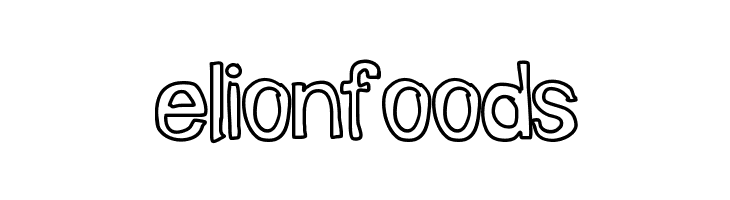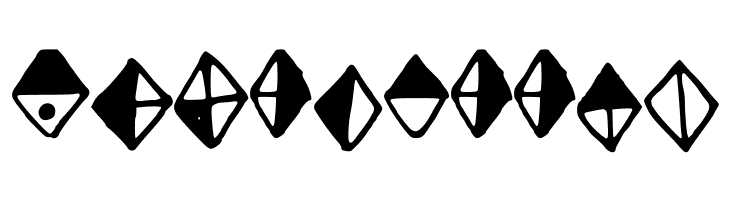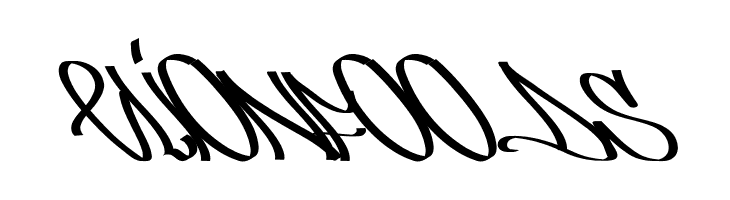
A playful, graffiti-inspired outline font with a bold and artistic style.
( www.southype.com )
A decorative font with geometric letters enclosed in ornate diamond shapes.
( Fonts by CloutierFontes )
A bold, decorative font with a camouflage pattern, perfect for military-themed designs.
( Fonts by M. Ramos )
A graffiti-inspired font with bold, sweeping lines and a dynamic, urban aesthetic.
( Fonts by M. Ramos )
A dynamic, cursive script font with fluid strokes and artistic flair.